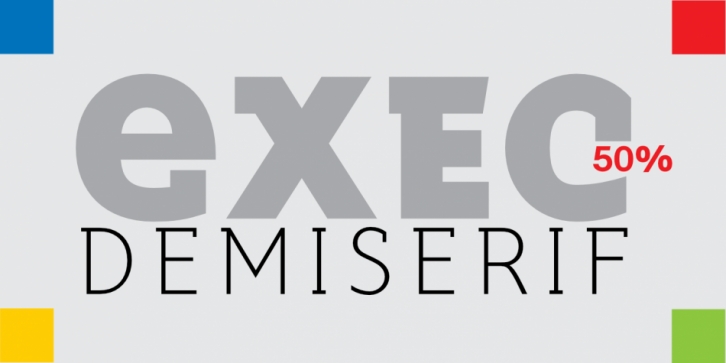
Publisher: Wiescher-Design
Designed by Gert Wiescher, Exec Demiserif is a display serif font family. This typeface has seven styles and was published by Wiescher-Design.
I created my new »EXEC« Sans and this Demiserif cut during the years 2018 to mid 2020.
As the entire »EXEC«-family the Demiserif also has 7 weights, ranging from Thin to Bold (no italics, doesn’t look nice). The Demiserif is also suited well for editorial, book text, advertising and packaging, logo, branding, small text as well as web and screen design.
»EXEC«-Demiserif has advanced typographical support including ligatures, small caps, alternate characters, case-sensitive forms, fractions, super- and subscript characters.
»EXEC«-Demiserif comes with a range of figures, oldstyle and lining figures, each in tabular and proportional widths.
»EXEC«-Demiserif supports Basic-, Western-, and Central-European Latin-based languages including Turkish.